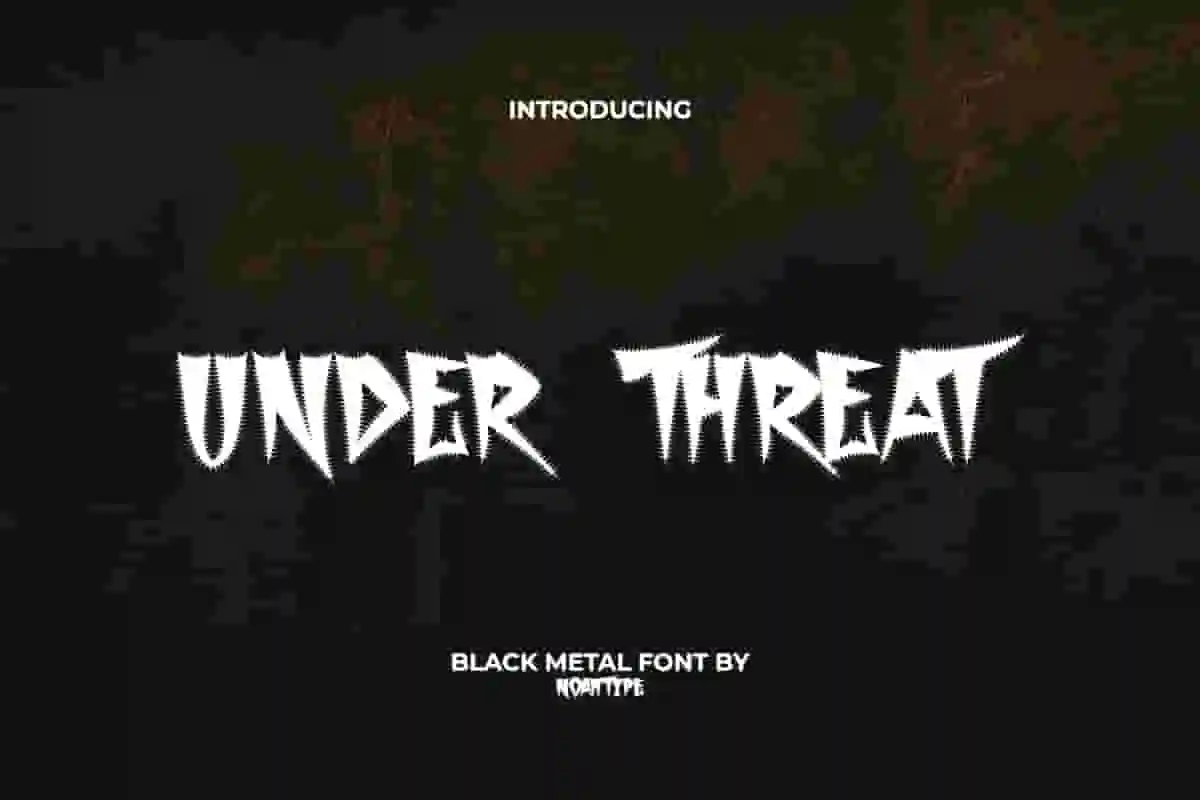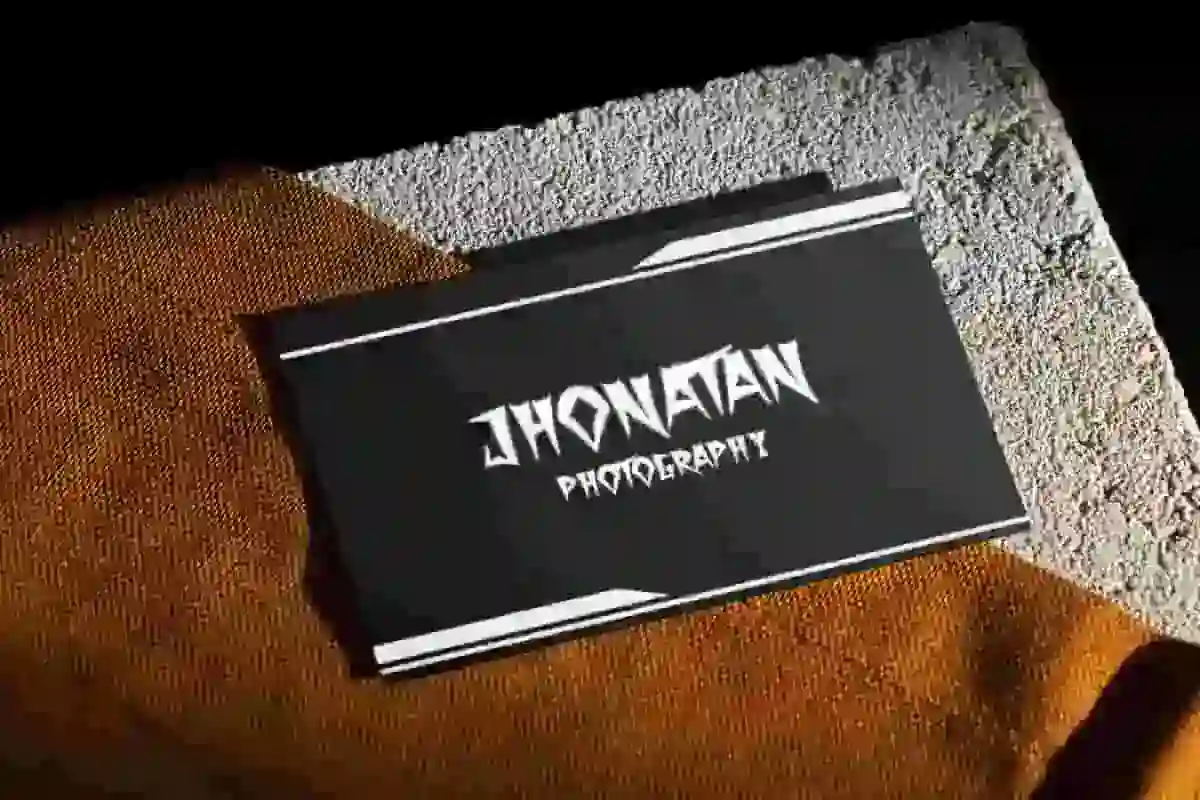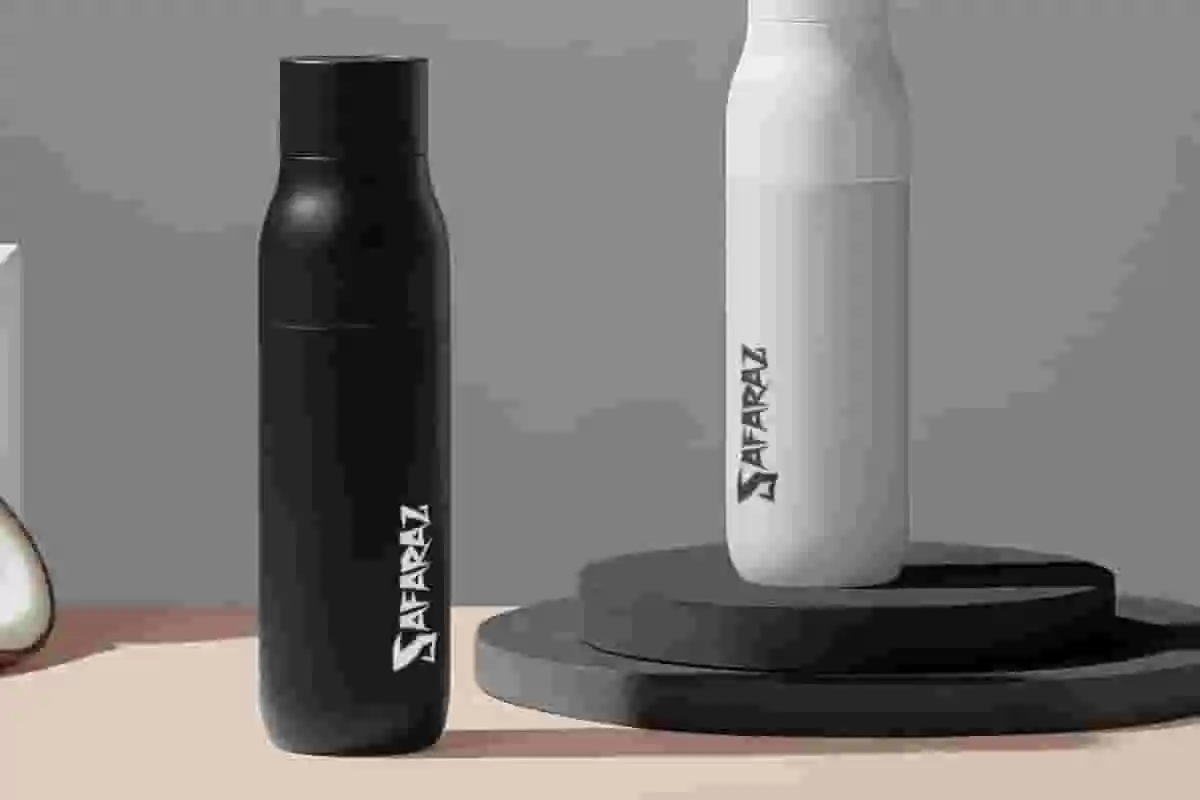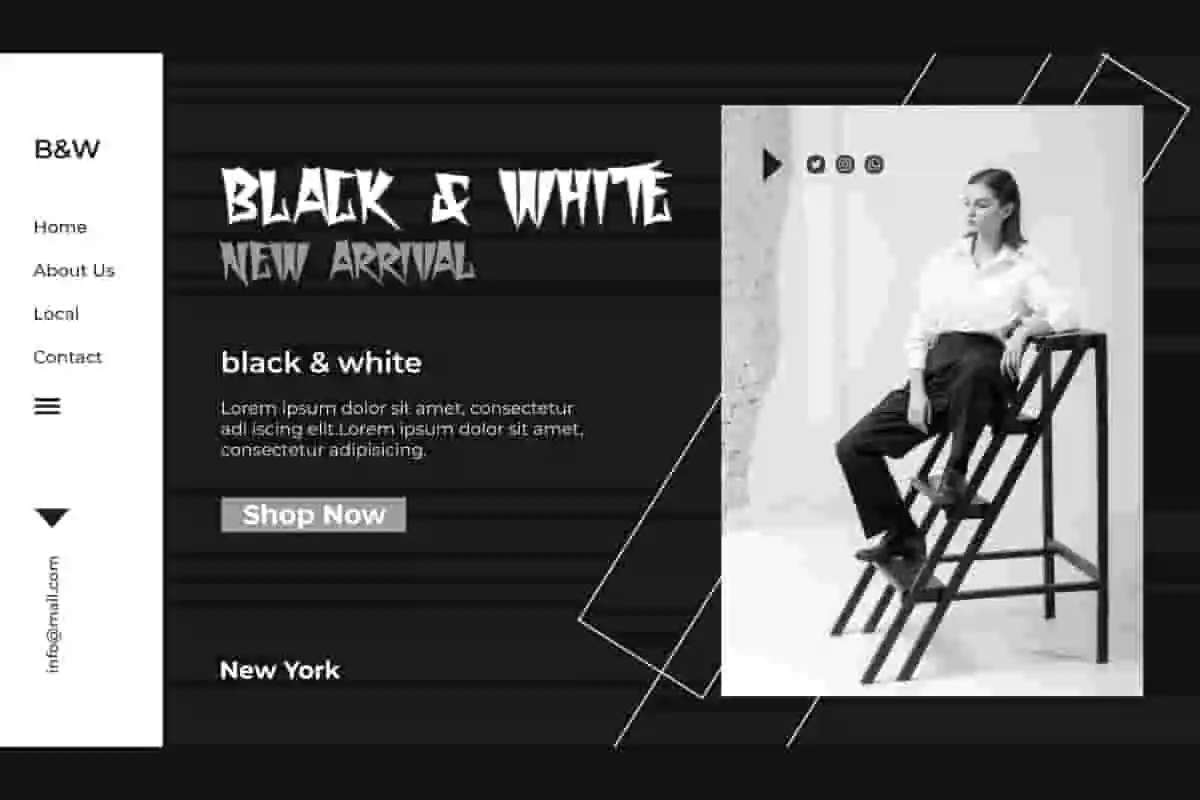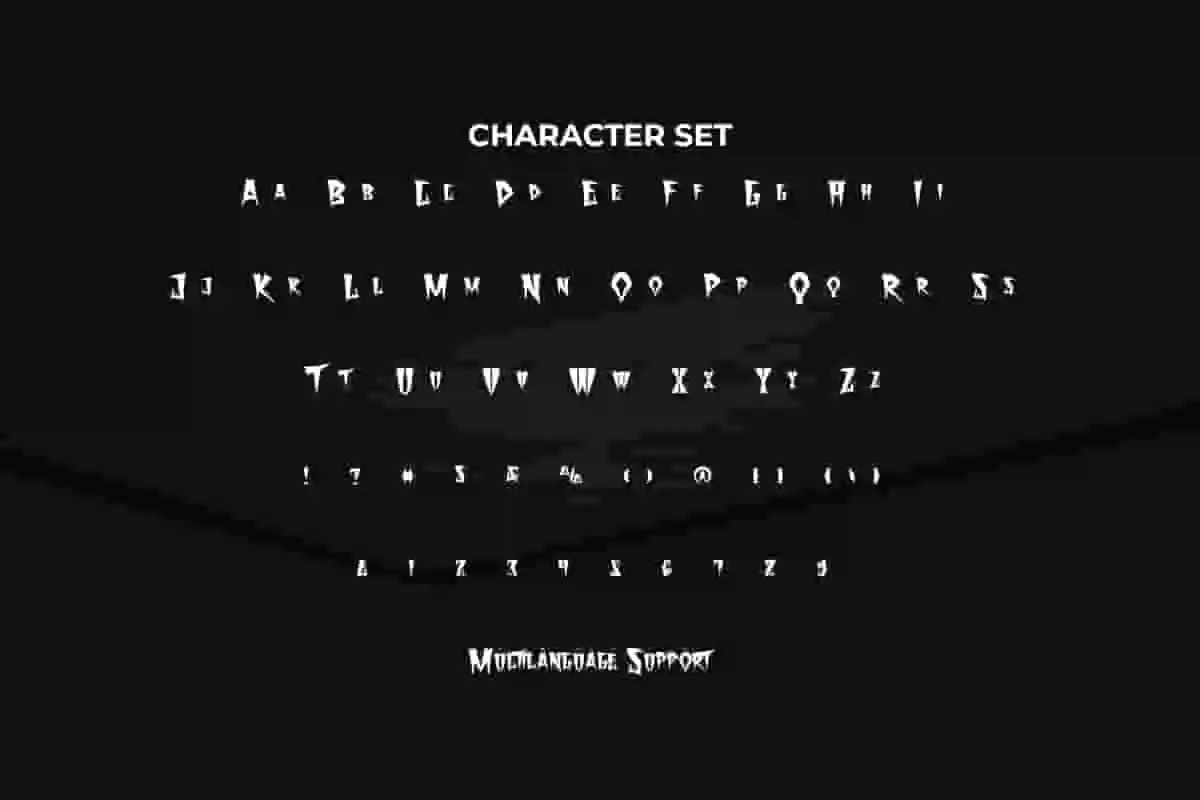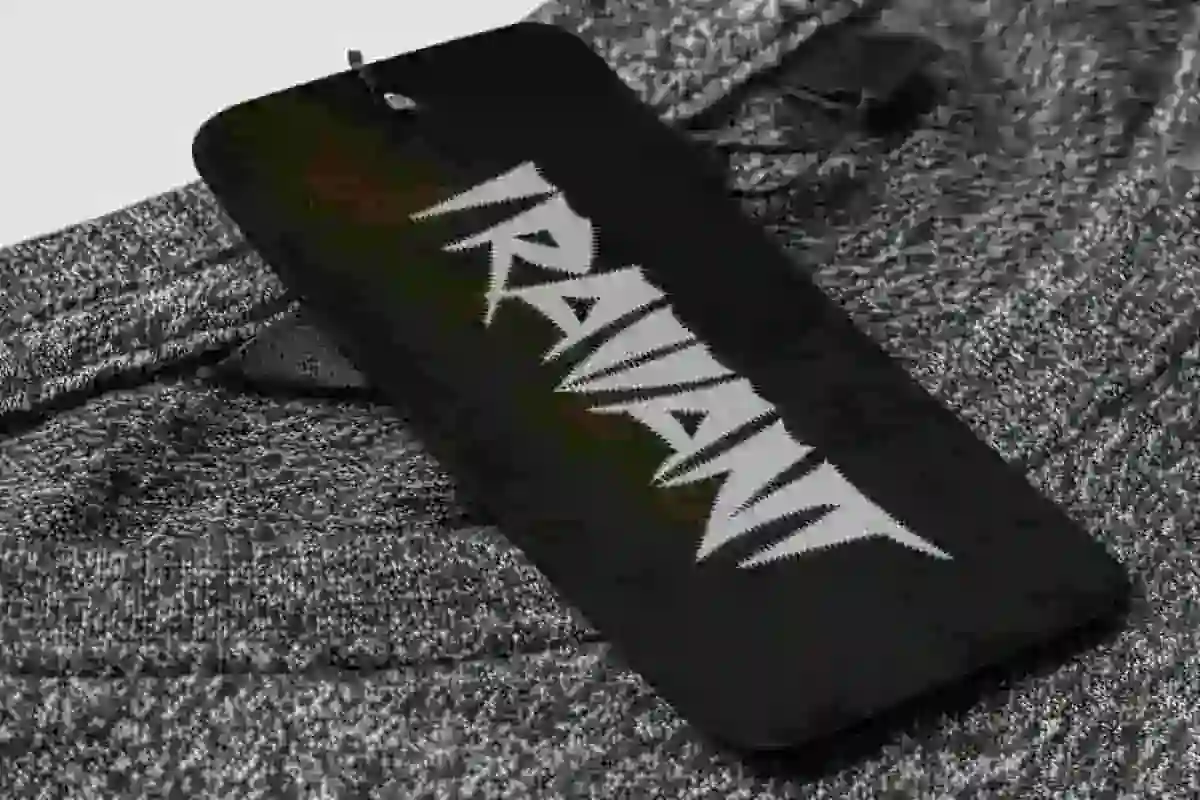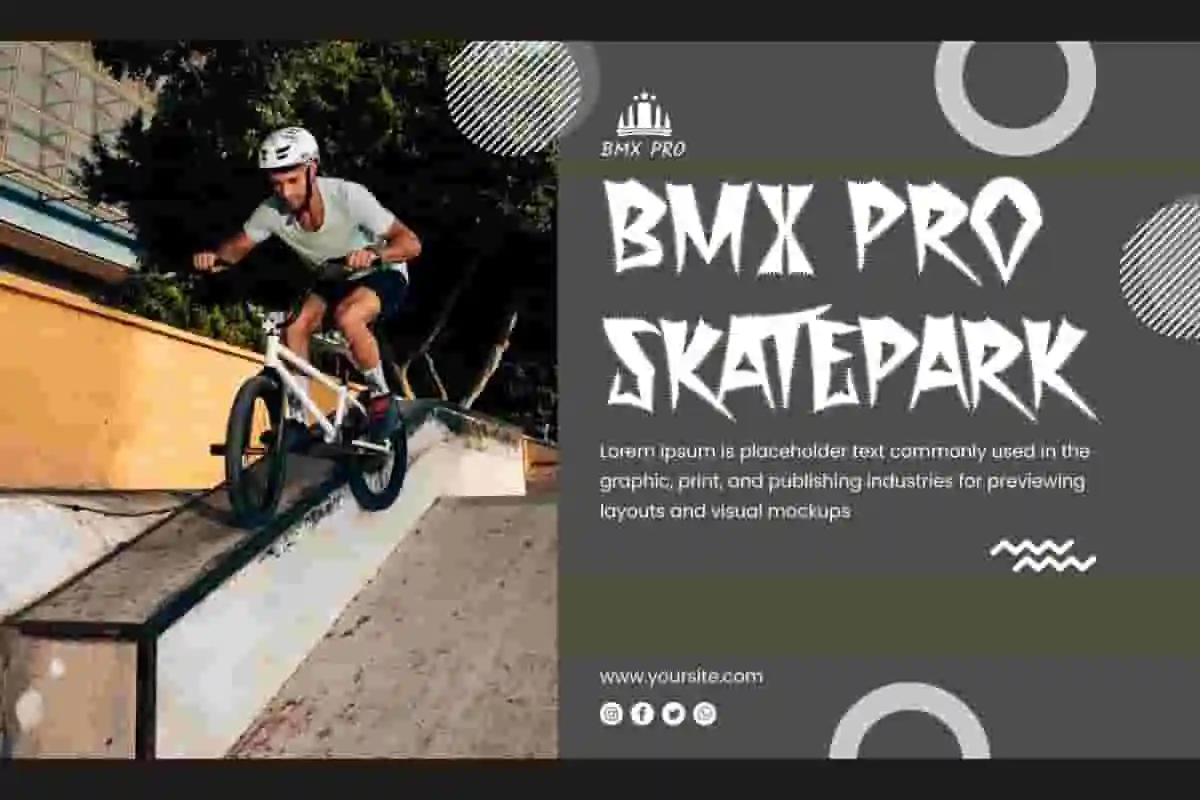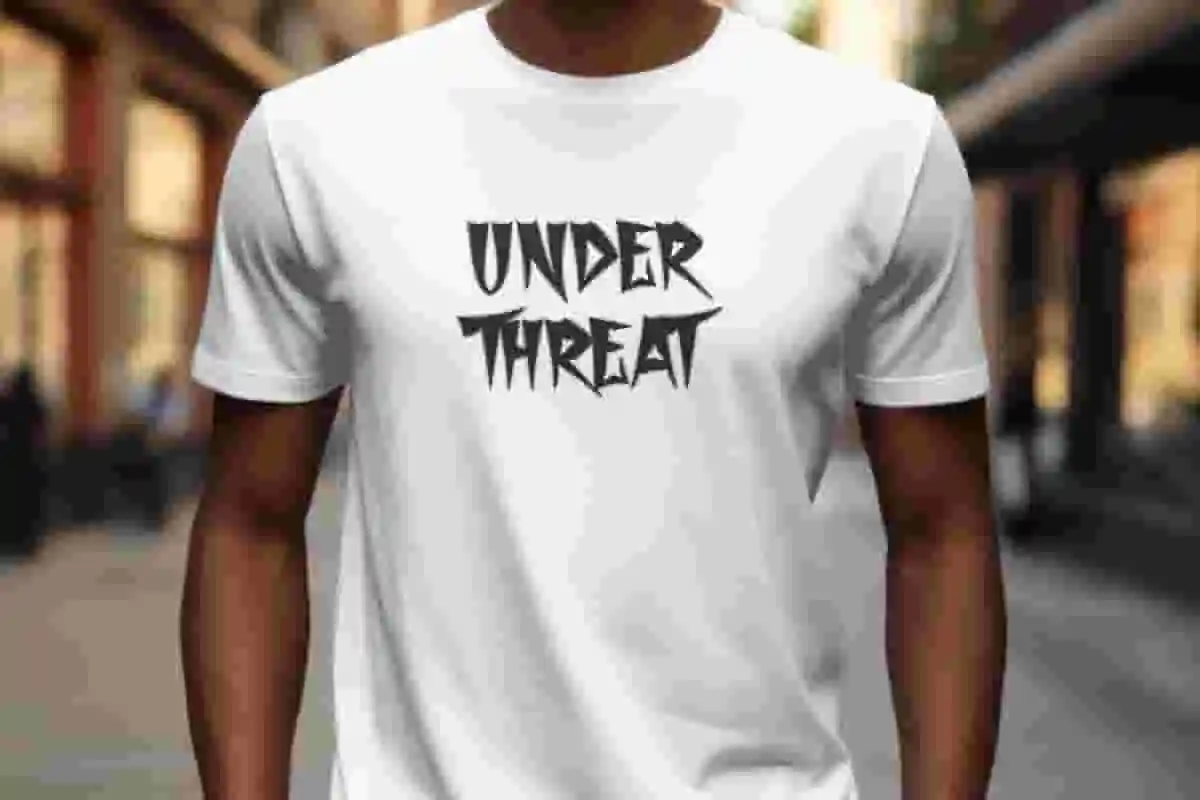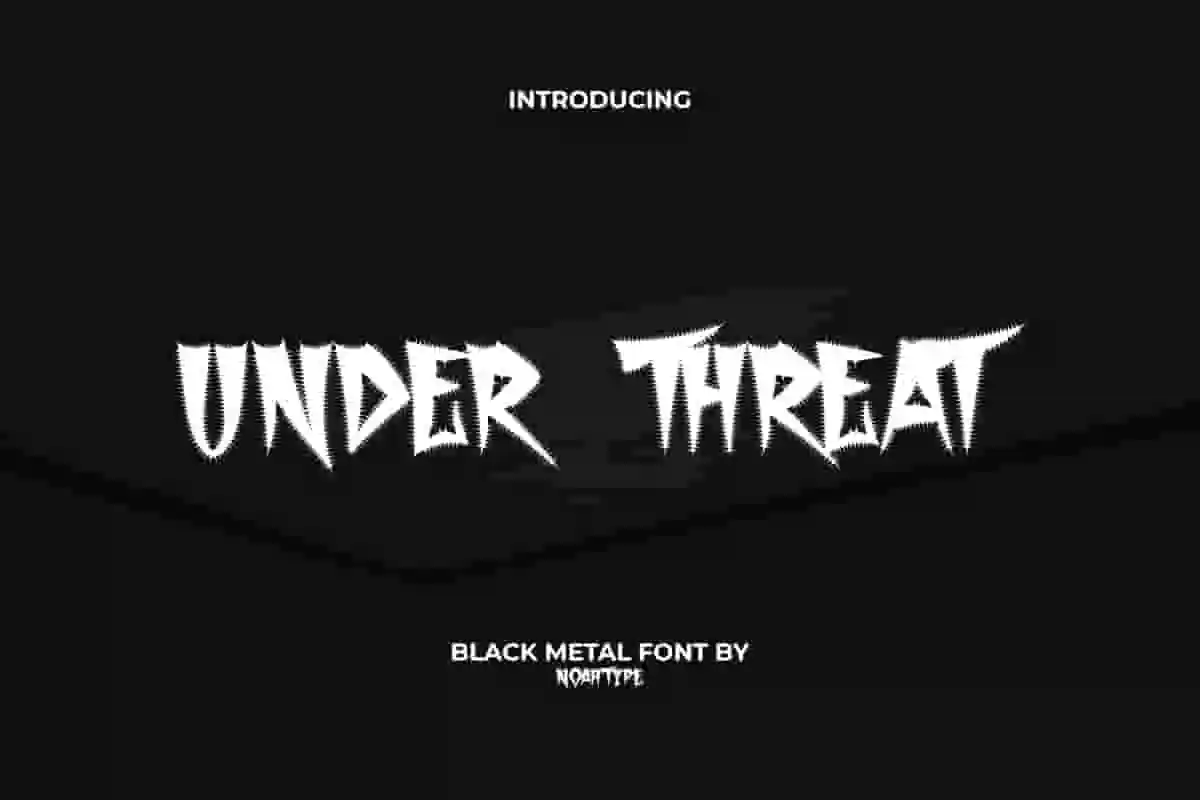
Under Threat Font is a hardcore horror black letter Black Metal font by NoahType. This font has a scary look with small spikes along the sides of the letters giving it a savage look. It will be awesome for any designs, such as custom design, brand image, poster, label, invitation, cover, marketing material, menu, printing, product packaging, quotes, signage, website, and many more!
Under Threat Font includes full set of ALL CAPS for Uppercase and Lowercase Basic Characters, Numerals, Punctuation, and Symbol. This creative font will make your design cool and also a perfect choice for many industries, such as game, movie, comic, music, accessories, advertising, art, café, event or festival, fashion, printing, publishing, etc.